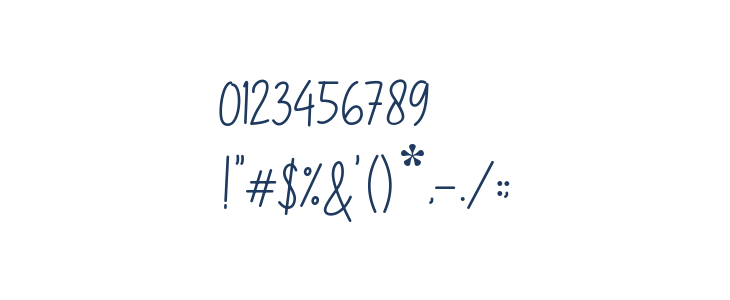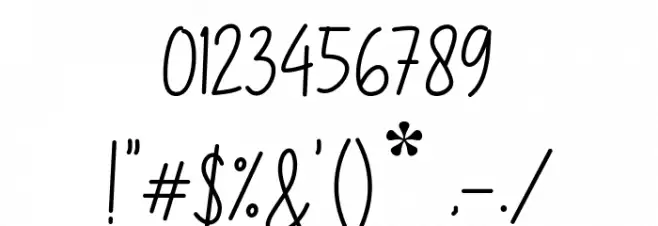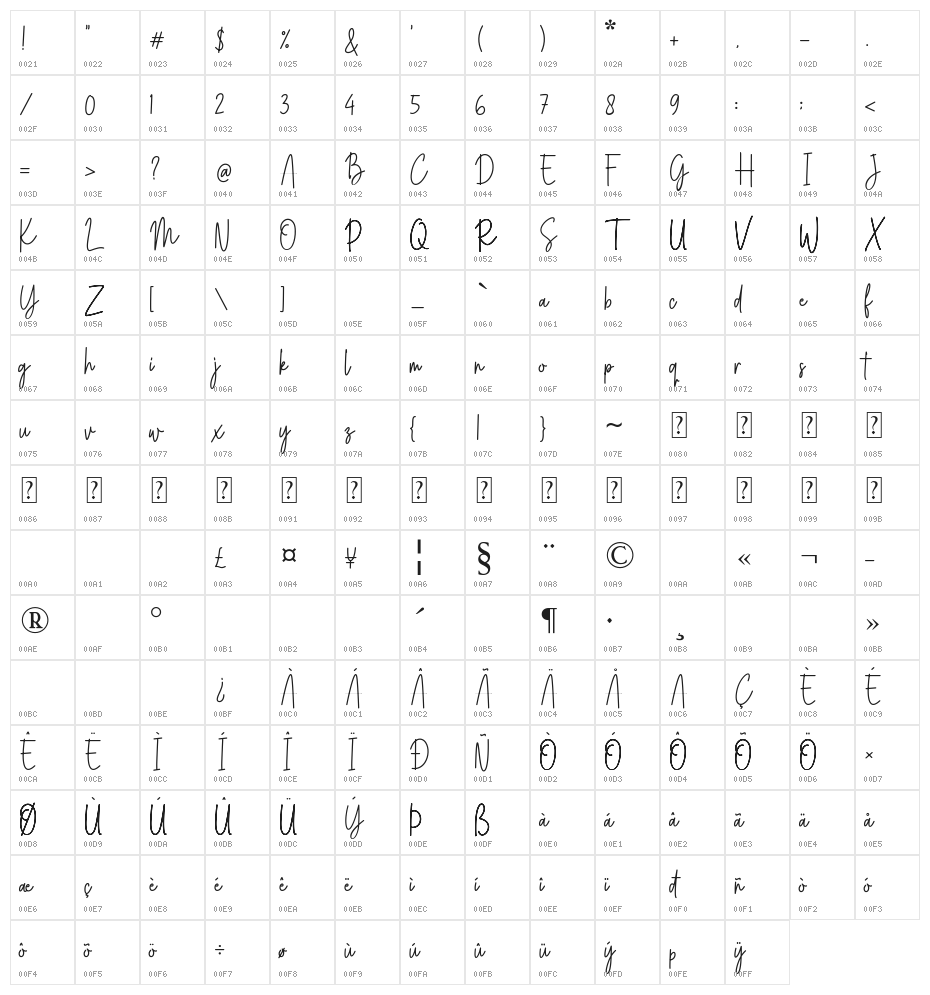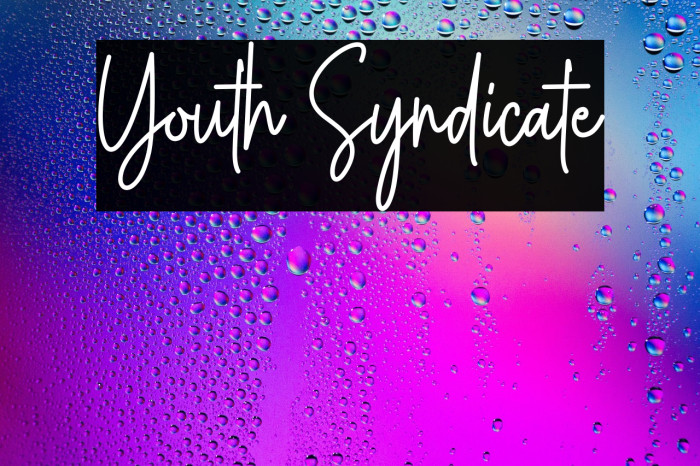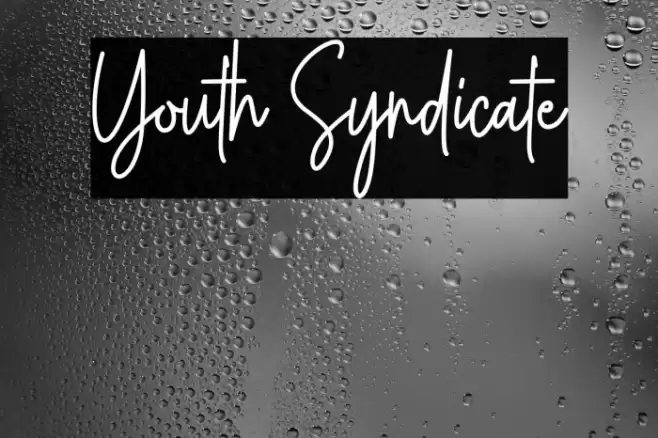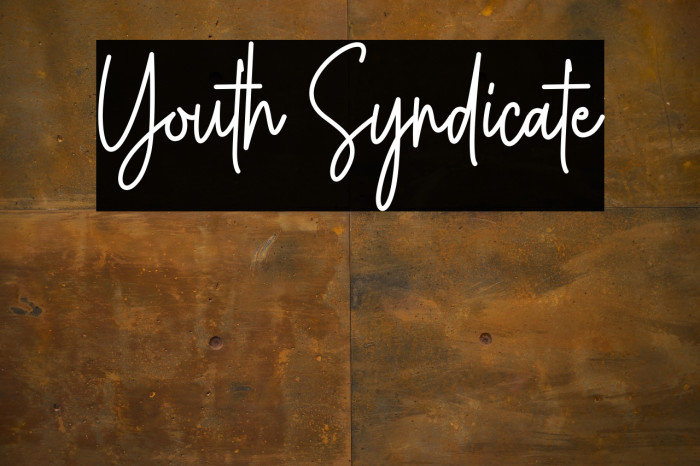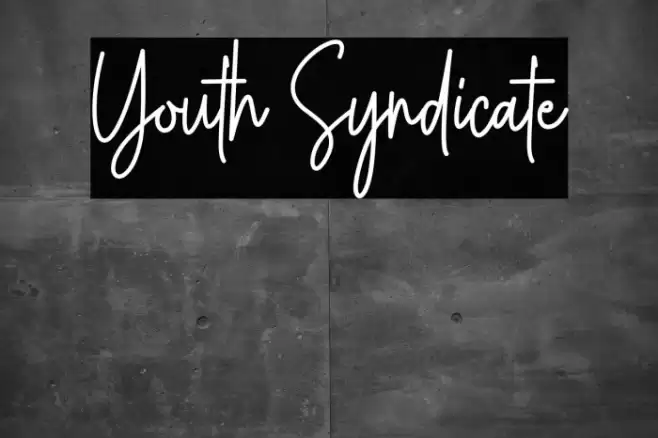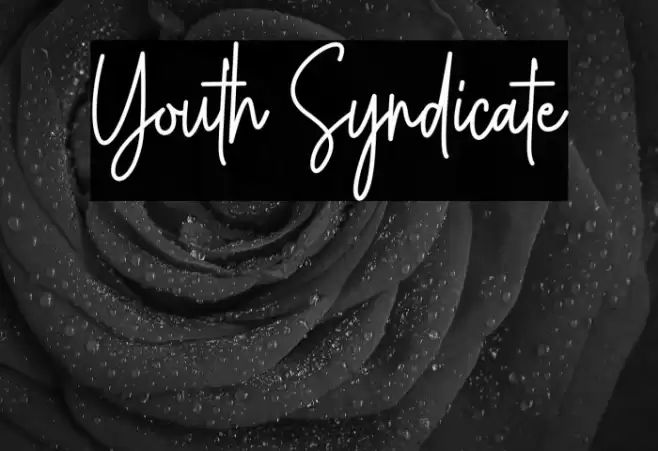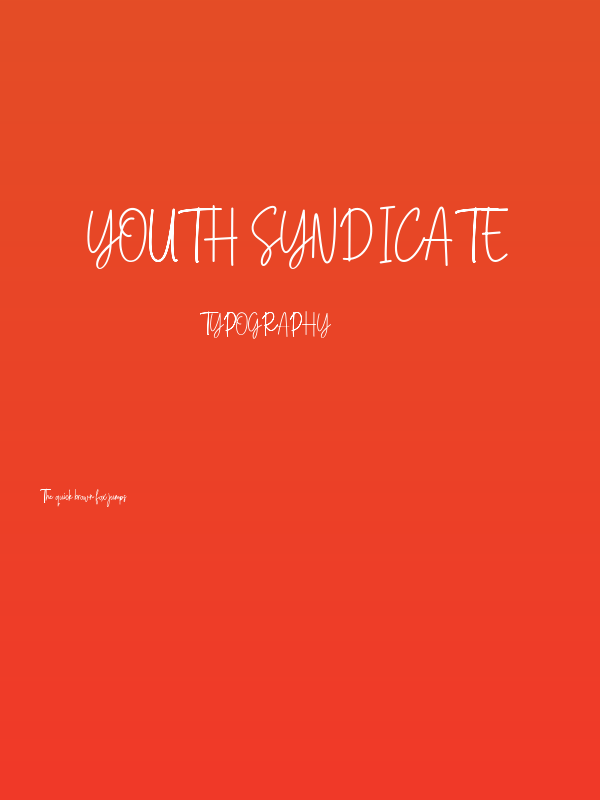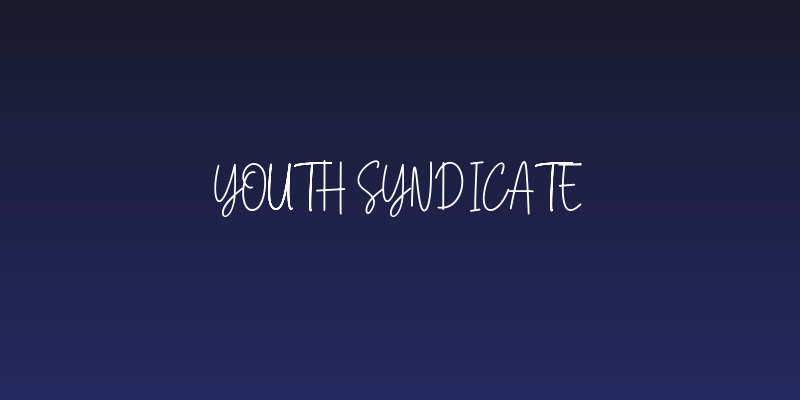
Youth Syndicate Font
Youth Syndicate Description
This font features a playful and casual handwritten style, characterized by its flowing and slightly irregular strokes. The uppercase letters are tall and slender, with a whimsical touch that adds personality. The lowercase letters maintain a consistent flow, enhancing the font's approachable and friendly appearance. Numbers and special characters follow the same handwritten aesthetic, ensuring a cohesive look across all text. The overall design is informal yet stylish, making it suitable for creative and expressive projects.
| Overall Style | Casual and playful |
| Use Case | Headlines, Logos, Informal text |
| Proposed Projects | Ideal for greeting cards, invitations, personal branding, and social media graphics where a personal touch is desired. |